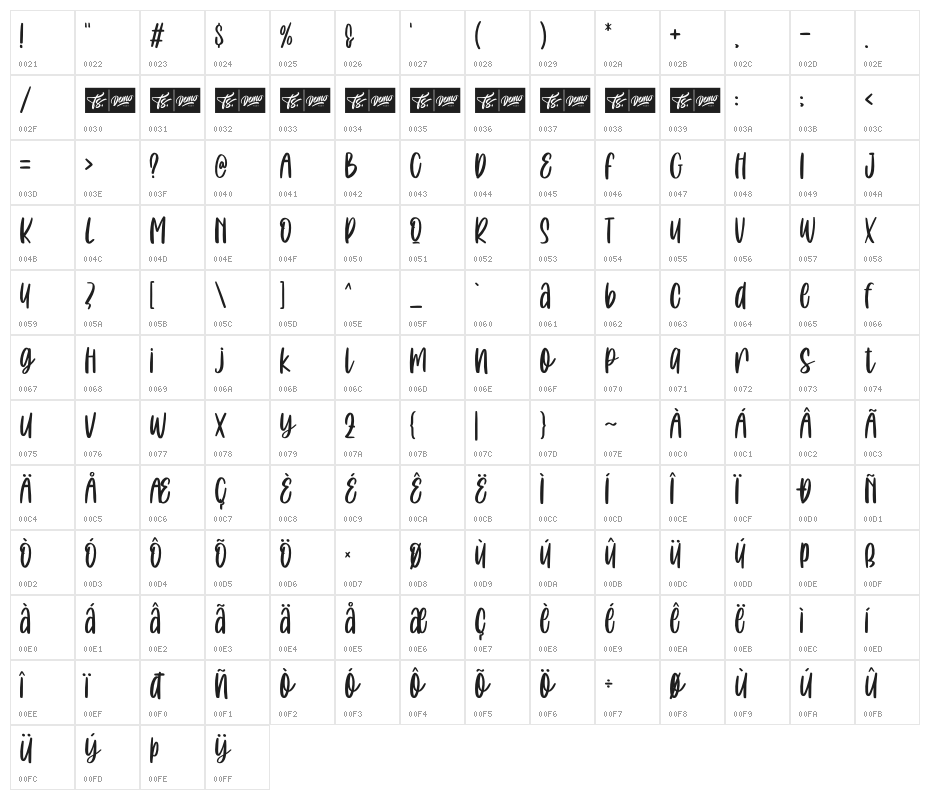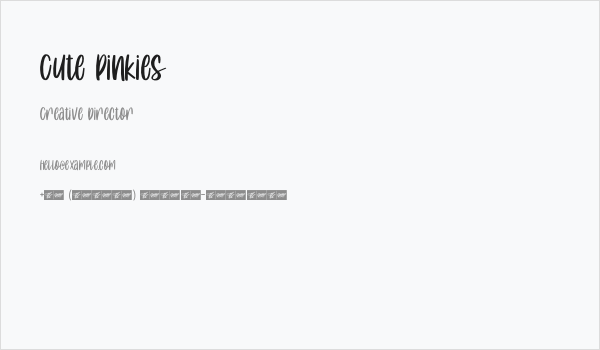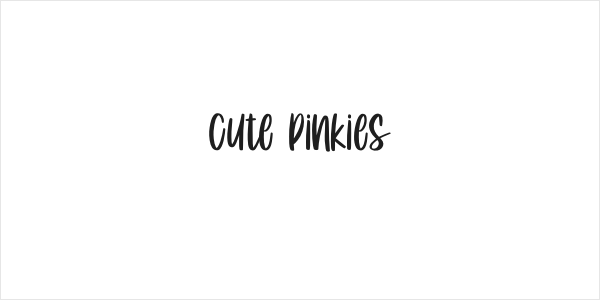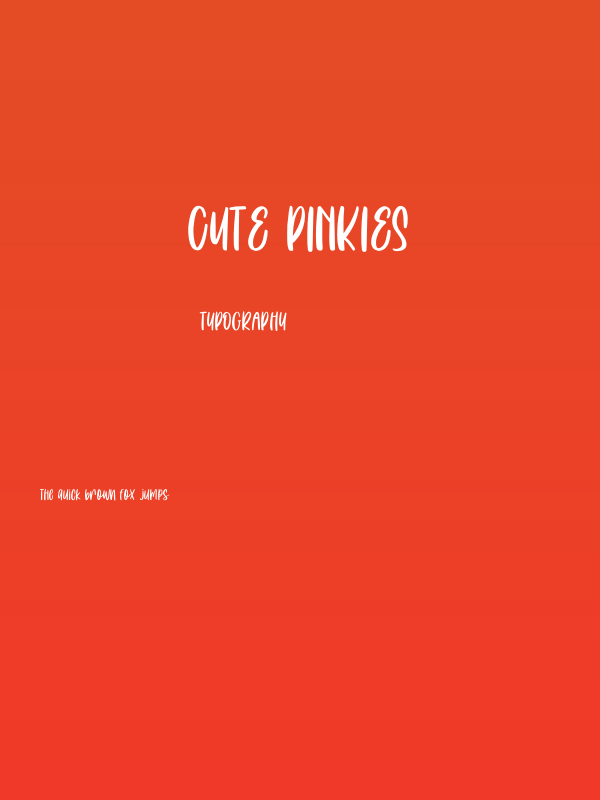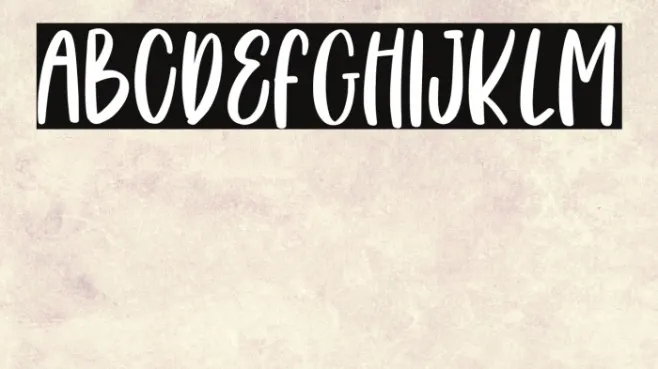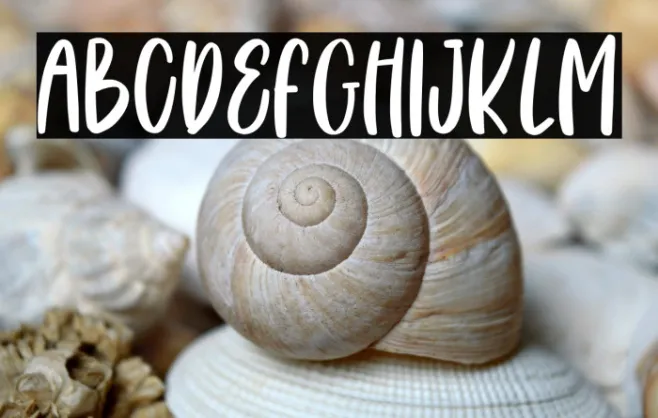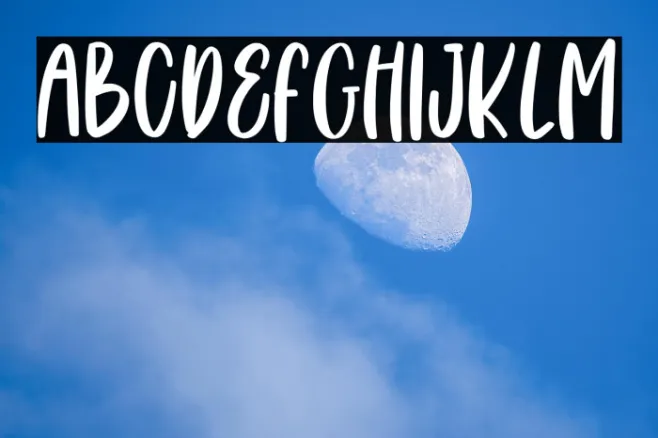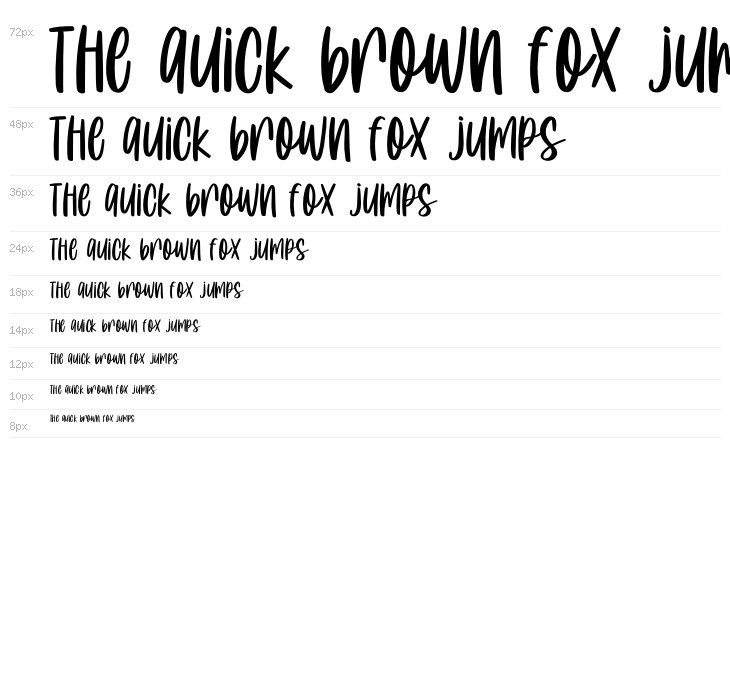
Cute Pinkies Font
Cute Pinkies Description
This playful and energetic font features a handwritten style with a bold and lively appearance. The characters are crafted with smooth, rounded edges and a consistent stroke width, giving it a friendly and approachable feel. The uppercase and lowercase letters maintain a cohesive look, with slightly exaggerated curves and loops that add a whimsical touch. The numerals and special characters are designed to match the overall style, ensuring a harmonious appearance across all text elements. This font is perfect for projects that require a fun and informal vibe.
| Use Case | Logos, Headlines, Social media graphics |
| Proposed Projects | Ideal for greeting cards, children's books, playful branding, and social media graphics. |